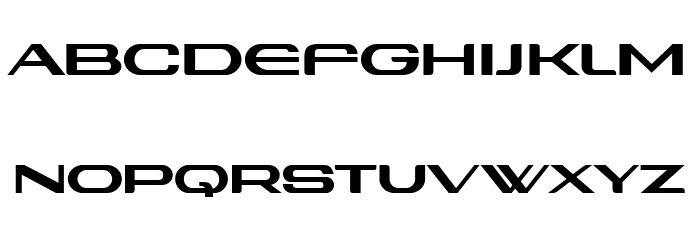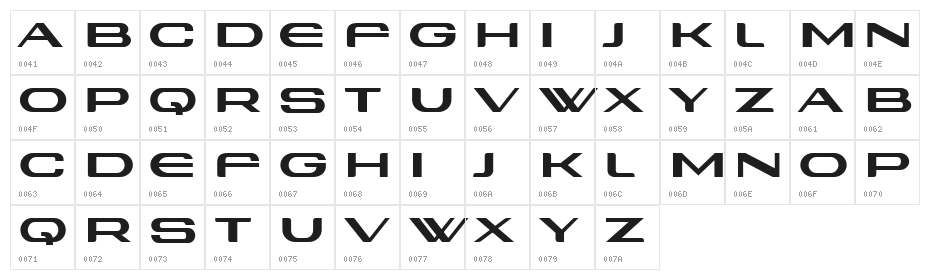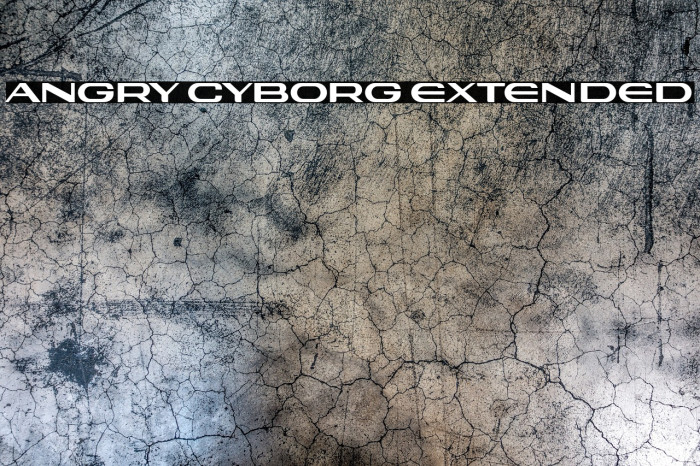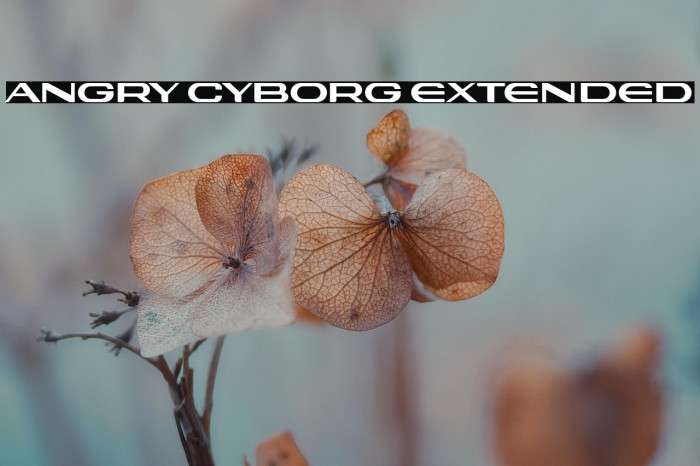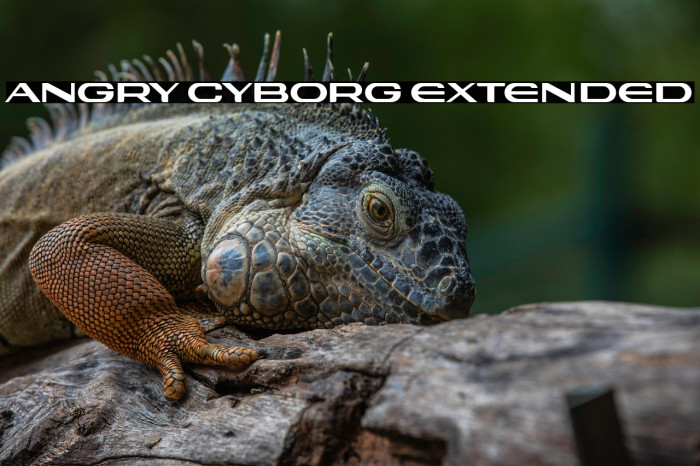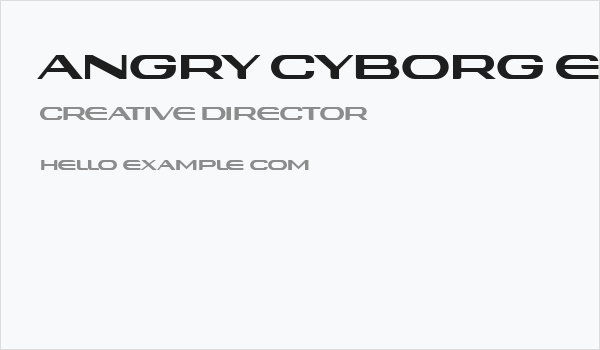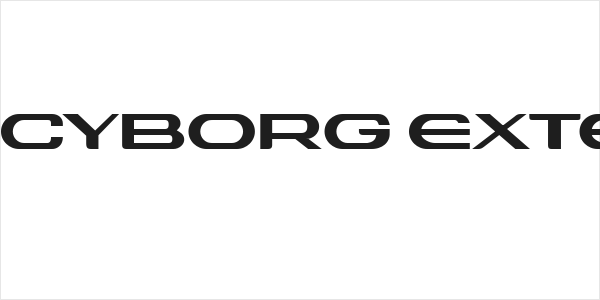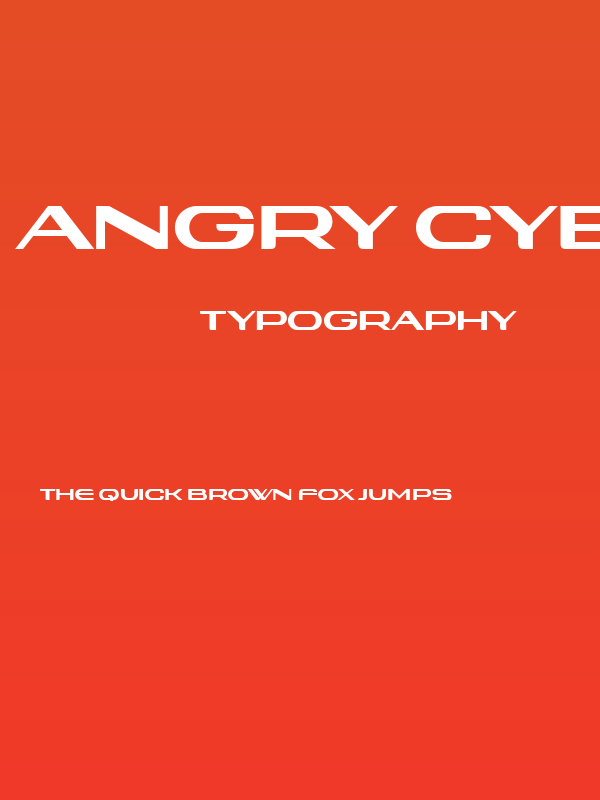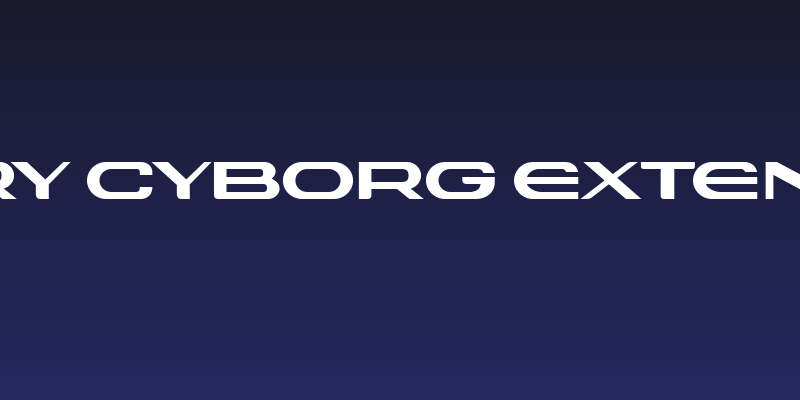
Angry Cyborg Extended Font
Angry Cyborg Extended Description
This font features a futuristic and mechanical design, characterized by sharp angles and geometric shapes. The uppercase letters exhibit a bold and extended form, giving a sense of strength and modernity. The strokes are consistent in thickness, providing a uniform appearance. The design incorporates subtle curves within the angular structure, adding a touch of elegance to its industrial aesthetic. The font's extended width enhances its presence, making it suitable for impactful visual statements. Its unique style is ideal for projects that require a contemporary and tech-inspired look.
| Proposed Projects | Ideal for technology branding, sci-fi movie posters, video game titles, and futuristic product packaging. |